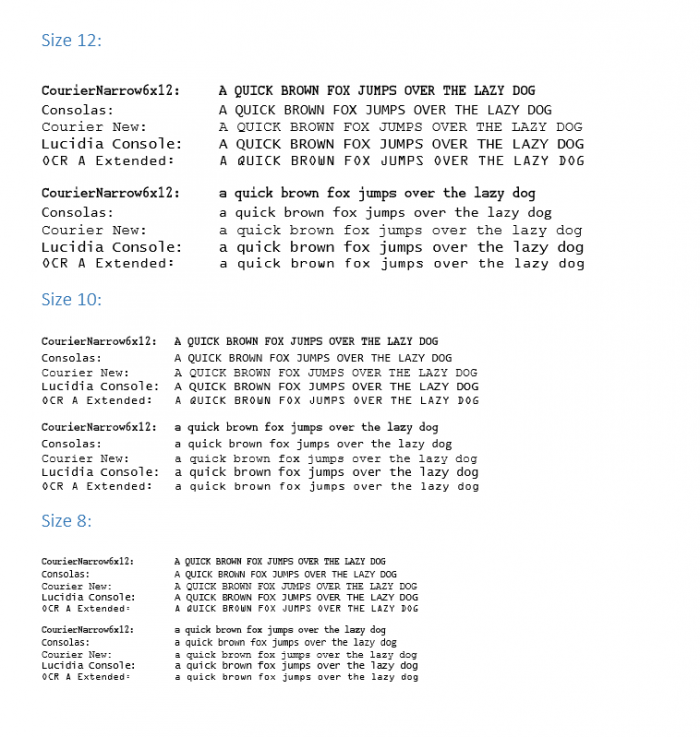
My fourth attempt to do Courier Narrow. This works pretty well down to about size 10, and is still reasonably readable at size 8. It may not be narrow enough although it is both shorter and narrower than Courier New. it is the same height as Lucidia Console, but narrower. It is about 90% the width of both. I think I may try with 5x12 since the lower case o in this font is round. It could be squeezed a bit. The x and z also tell me that things could go narrrower.
Here is CourierNarrow6x12 compared to four other monospace Mocrosoft fonts.
Can you add the rest of accents?
Where is stroke in capital letter "L"?
@Byczek, Thank you very much, it looks like I didn't finish 4 of the Ls. They are now fixed.
Interesting narrowed version! (I'd need to see it 'ClearTyped' or postprocessed, against your slight weight overshoot it added.)
@dpla - I am a novice with font work and don't know what cleartyped or postprocessed means. Could you point me in some direction to learn about this?
• 'Postprocessed'… in general via an image editor (bitmap, vector, 3D editions… it depends on the filter you need, beside one can fine tune the contrast/gamma). If it were me, I'd use Inkscape (open-source freeware) to make a logo lose weight using your nice "CourierNarrow6x12". But I did not check your font locally (monitor setting might help increase the sharpness, etc.).